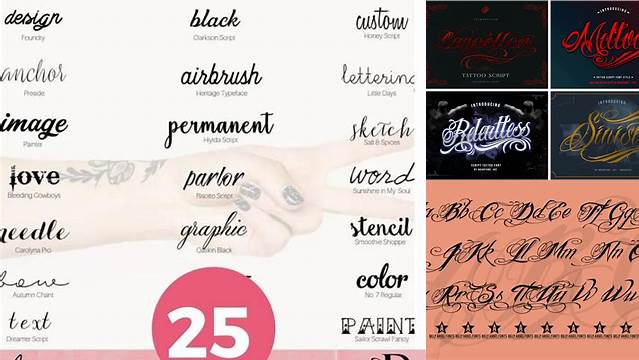
1001 Fonts: Find The Perfect Tattoo Font Style
Hey guys! Thinking about getting a new tattoo and want it to look absolutely amazing? One of the most crucial parts of a killer tattoo is the font. Choosing the right font can make or break your design, conveying the exact message and vibe you're going for. And that's where 1001 Fonts comes in! This site is a treasure trove of tattoo-worthy fonts, and we’re going to dive deep into how to find the perfect one for your next piece of art. Trust me, selecting the right font is as important as choosing the right artist! This guide will walk you through everything you need to know about tattoo fonts available on 1001 Fonts, helping you make a choice that you'll love for years to come.
Why Fonts Matter in Tattoo Design
Let's get real – fonts aren’t just some decorative element; they are the backbone of any text-based tattoo. The font you choose can drastically affect the tattoo's overall look and feel, communicating the tone, style, and personality of the message. Imagine wanting a delicate, elegant quote, but ending up with a heavy, gothic font – that's a major mismatch, right? A strong, bold font can convey power and resilience, perfect for a word like “Strength” or “Courage”. On the other hand, a flowing, script font might be ideal for a name or a sentimental phrase, adding a touch of grace and intimacy. It's about creating a visual harmony between the words and the design. Think of it as the voice of your tattoo; it needs to speak clearly and authentically. When you nail the font, you're not just getting a tattoo; you're making a statement. The right font ensures your tattoo isn't just visually appealing but also deeply meaningful, reflecting your personal story and style. So, spend time exploring different options, and don’t rush the process. Your future self will thank you for it!
Exploring Tattoo Font Styles on 1001 Fonts
1001 Fonts is like a massive candy store for font lovers, especially those looking for tattoo inspiration! Seriously, the variety is incredible, and it can feel a bit overwhelming at first. But don't worry, we're here to break it down. You'll find everything from classic scripts and elegant calligraphy to bold gothic and edgy tribal styles. Each category offers a unique flavor, catering to different tastes and tattoo concepts. Script fonts, for instance, are super popular for quotes, names, and meaningful dates, adding a touch of sophistication and fluidity. Gothic fonts, with their dark and dramatic flair, are perfect for those seeking a bold and powerful statement. Tribal fonts, inspired by ancient cultures, bring a unique and exotic vibe to your ink. And then there are the modern and minimalist fonts, which offer a clean and understated look, ideal for those who prefer simplicity. To make your search easier, 1001 Fonts allows you to filter fonts by category, size, and even specific characteristics like “vintage” or “futuristic”. This helps you narrow down your options and find the perfect match for your vision. So, take your time, browse through the collections, and let your creativity flow!
Script Fonts
Script fonts are like the elegant handwriting of the font world, bringing a touch of class and sophistication to any tattoo. These fonts often mimic cursive writing, featuring flowing strokes and connecting letters that add a personal and intimate feel. They're incredibly popular for tattoos that include names, quotes, or meaningful dates, making them a go-to choice for sentimental ink. Think about how a beautifully scripted name can transform a simple tattoo into a heartfelt tribute. On 1001 Fonts, you'll find a wide array of script fonts, from delicate and refined styles to bold and dramatic ones. For example, a lighter script font might be perfect for a subtle wrist tattoo, while a bolder script can make a statement on the forearm or back. The key is to choose a script that not only looks beautiful but is also legible – you want your message to be clear and easily readable. Consider the size and placement of your tattoo as well; a very intricate script might lose its detail if it’s too small. So, explore the different script options, visualize how they’ll look on your skin, and pick the one that resonates most with your personal style and the message you want to convey. Trust me, a well-chosen script font can elevate your tattoo to a whole new level of elegance.
Gothic Fonts
Gothic fonts are the rebels of the font family, bringing a dark, dramatic, and undeniably cool vibe to your tattoo. If you’re looking to make a bold statement, these fonts are your best bet. They’re characterized by their sharp, angular lines and often feature intricate details that evoke a sense of history and mystique. Think of old manuscripts and medieval texts – that’s the kind of feel we’re talking about. Gothic fonts are perfect for words or phrases that carry a strong meaning, such as “Courage,” “Strength,” or even a powerful quote. They’re also a popular choice for those who want to add a touch of edge and intensity to their ink. On 1001 Fonts, you'll find a diverse range of gothic fonts, from classic blackletter styles to more modern interpretations. Some are highly ornate and decorative, while others are cleaner and more streamlined. When choosing a gothic font, it’s important to consider the overall design of your tattoo. These fonts tend to be quite bold, so they work best when they’re the focal point of the piece. Also, make sure the font is legible, especially if your tattoo includes a longer word or phrase. A gothic font that’s too complex can become difficult to read, so balance style with clarity. Embrace the darkness and drama of gothic fonts, and let your tattoo make a powerful impact!
Tribal Fonts
Tribal fonts are like a journey back in time, connecting you to ancient cultures and traditions through their unique and symbolic designs. These fonts are inspired by the artistic styles of various indigenous tribes around the world, featuring bold lines, intricate patterns, and a strong sense of heritage. They’re a fantastic choice for tattoos that aim to convey strength, spirituality, or a connection to one’s roots. Imagine the powerful imagery of Polynesian tribal tattoos or the intricate patterns of Native American designs – that’s the kind of inspiration tribal fonts draw from. On 1001 Fonts, you'll discover a wide array of tribal fonts, each with its own distinct character and cultural influence. Some fonts feature sharp, geometric shapes, while others incorporate flowing, organic lines. When selecting a tribal font, think about the specific message you want to communicate and the cultural significance you want to honor. It’s crucial to approach tribal designs with respect and understanding, ensuring that your tattoo is a meaningful tribute rather than a superficial imitation. Consider the size and placement of your tattoo as well; tribal fonts often look stunning on larger areas of the body, such as the arm, back, or leg. Dive into the rich history and artistry of tribal fonts, and let your tattoo tell a story that spans centuries.
Finding the Perfect Font on 1001 Fonts: A Step-by-Step Guide
Okay, so you’re ready to dive into the 1001 Fonts world and find that perfect tattoo font. Awesome! But with so many options, where do you even start? Don’t sweat it; we’ve got you covered with a step-by-step guide to make your search smooth and successful. First things first, head over to the 1001 Fonts website. Once you’re there, you’ll see a search bar and various categories to explore. Start by thinking about the overall style you’re going for. Do you want something elegant and script-like? Or maybe bold and gothic? Or perhaps something tribal and unique? Having a clear idea of the style will help you narrow down your options significantly. Use the category filters on the site to browse through different font styles like “Script,” “Gothic,” “Tribal,” and more. This is where you can really get a feel for what’s available and what catches your eye. Once you’ve found a few fonts that you like, use the preview tool to see how your chosen word or phrase looks in that font. This is super important because a font might look great in the sample text, but not quite right with your specific message. Play around with different sizes and styles to get a sense of the font’s potential. And don’t forget to consider the legibility of the font – you want to make sure your tattoo is readable! Save your favorite fonts to a list or take screenshots so you can easily compare them later. Finally, consult with your tattoo artist. They’re the experts and can offer valuable insights on which fonts will work best for your design and placement. By following these steps, you’ll be well on your way to finding the perfect font for your dream tattoo!
Tips for Choosing a Tattoo Font
Choosing a tattoo font isn’t just about picking something that looks cool; it’s about selecting a font that will stand the test of time and truly represent you. So, let’s dive into some crucial tips to help you make the best decision. First and foremost, think about the message you want to convey. Is it a powerful quote? A sentimental name? A meaningful date? The font should align with the tone and spirit of your message. A delicate script might be perfect for a loving tribute, while a bold gothic font could be ideal for a statement of strength. Next up, consider the legibility of the font. This is super important. A font might look amazing on your computer screen, but if it’s too intricate or stylized, it could become a blurry mess on your skin over time. Choose a font that’s clear and easy to read, even from a distance. Size and placement are also key factors. A tiny, intricate font might not work well for a large tattoo, and a huge, bold font might overwhelm a small, delicate design. Think about where you want your tattoo and how the font will fit within that space. The style of your tattoo matters too. If you’re going for a traditional tattoo, a classic font like a script or old English might be a great fit. If you prefer a more modern style, consider a clean, sans-serif font. And lastly, don’t rush the process! Choosing a tattoo font is a big decision, so take your time, explore different options, and get feedback from your tattoo artist. By keeping these tips in mind, you’ll be sure to find a font that you’ll love for years to come.
Working with Your Tattoo Artist
So, you’ve scoured 1001 Fonts, found a few fonts you’re obsessed with, and now it’s time to bring your tattoo artist into the loop. This is a crucial step, guys, because your artist is the expert who can help turn your vision into a stunning reality. Think of your tattoo artist as your creative partner. They have the experience and knowledge to guide you in making the best choices for your tattoo. Before your consultation, gather all your ideas and inspiration. Bring screenshots of the fonts you like, along with any other design elements you have in mind. This will give your artist a clear understanding of your style and preferences. During your consultation, discuss your font choices with your artist. They can provide valuable feedback on which fonts will work well for your design, considering factors like size, placement, and legibility. They might also suggest alternative fonts that you haven’t considered. Your artist can also advise you on any necessary modifications to the font. Sometimes, a font needs to be tweaked slightly to ensure it looks its best as a tattoo. This could involve adjusting the spacing between letters, thickening certain lines, or adding unique flourishes. Don’t be afraid to ask questions and share your concerns. Your tattoo artist is there to help you, and they want you to be thrilled with your final result. It’s a collaborative process, so open communication is key. By working closely with your tattoo artist, you can ensure that your tattoo is not only visually appealing but also technically sound, resulting in a piece of art that you’ll cherish forever. Trust their expertise, and together, you’ll create something amazing!
Maintaining the Beauty of Your Font Tattoo
Okay, you've got your awesome new font tattoo, and it looks incredible! But the journey doesn't end there. To keep your ink looking its best for years to come, you need to take proper care of it. Think of your tattoo as a precious piece of art that needs a little TLC. The first few weeks are crucial for healing. Follow your tattoo artist’s aftercare instructions religiously. This usually involves keeping the area clean, applying a healing ointment, and avoiding direct sunlight. Proper aftercare helps prevent infections and ensures that the ink settles beautifully into your skin. Once your tattoo is fully healed, moisturizing is your new best friend. Dry skin can make your tattoo look dull and faded, so keep it hydrated with a good quality, fragrance-free moisturizer. This will keep the colors vibrant and the lines crisp. Sun exposure is a tattoo’s worst enemy. UV rays can cause the ink to fade and blur over time, so always apply a high SPF sunscreen to your tattoo whenever it’s exposed to the sun. This is especially important for tattoos with fine lines and intricate details, as they are more susceptible to fading. Avoid harsh chemicals and abrasive products on your tattoo. Things like strong soaps, exfoliants, and harsh detergents can irritate the skin and damage the ink. Stick to gentle, fragrance-free cleansers. And finally, stay healthy! Your skin is a reflection of your overall health, so eating a balanced diet, staying hydrated, and getting enough sleep will all contribute to the longevity and vibrancy of your tattoo. By following these simple tips, you can ensure that your font tattoo remains a stunning piece of art for years to come. Treat it with love, and it will continue to tell your story beautifully.